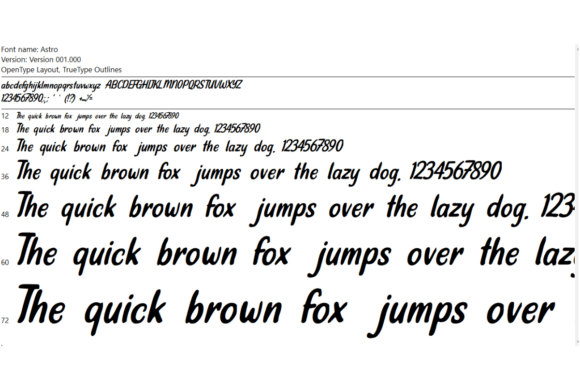
Meet Astro Font: Your New Go-To for Sophisticated Charm
Are you tired of using the same old fonts for your creative projects? Look no further than the Astro font, a sleek and sophisticated typeface that’s sure to elevate your designs to the next level. With its effortlessly chic vibe and elegantly tailored script, the Astro font is the perfect choice for adding a dollop of charm to any project.
A Decorative Font for Any Design Venture
The Astro font is a decorative font that’s designed to thrive in any design venture. Whether you’re working on a logo, brochure, or website, this font is sure to make your ideas stand out. Its sleek finish and easy-to-read layout make it a versatile choice that can be used in a variety of contexts, from formal to informal.
One of the key features that sets the Astro font apart is its unique blend of cutting-edge aesthetics and classic readability. In a crowded galaxy of fonts, the Astro typeface truly stands out, offering a fresh and modern take on traditional typography.
The Design Behind the Astro Font
So, what makes the Astro font so special? The design team behind this font has carefully crafted a typeface that imitates fast, expressive handwriting with a futuristic or βmotionβ aesthetic. The result is a font that feels lively and dynamic, with a sense of energy and movement.
Some of the key design choices that contribute to the Astro font’s unique look and feel include:
- Forward slant β gives a sense of speed and direction, creating a sense of momentum and flow.
- Extended tails and loops β evoke cursive fluidity and flair, adding a touch of elegance and sophistication.
- Variable stroke width β mimics brush or pen pressure, making the font feel lively and less mechanical.
Why Designers and Crafters Love the Astro Font
So, why are designers and crafters raving about the Astro font? For one, its unique blend of style and substance makes it a versatile choice that can be used in a wide range of projects. Whether you’re working on a professional design project or a personal crafting project, the Astro font is sure to add a touch of sophistication and charm.
Another reason designers and crafters love the Astro font is its ease of use. With its clear and legible layout, this font is easy to read and understand, making it perfect for use in body text or headlines.
How to Use the Astro Font in Your Projects
Ready to give the Astro font a try? Here are a few tips for incorporating this beautiful typeface into your projects:
- Use it as a headline font β the Astro font is perfect for use in headlines and titles, where its bold and eye-catching design can really make an impact.
- Pair it with a sans-serif font β for body text, try pairing the Astro font with a clean and simple sans-serif font, such as Arial or Helvetica.
- Experiment with different colors and textures β the Astro font looks great in a variety of colors and textures, so don’t be afraid to get creative and try out different combinations.
In conclusion, the Astro font is a sophisticated and versatile typeface that’s perfect for adding a touch of charm to any creative project. With its unique blend of cutting-edge aesthetics and classic readability, this font is sure to stand out in a crowded design landscape. Whether you’re a designer, crafter, or simply someone who appreciates beautiful typography, the Astro font is definitely worth checking out.